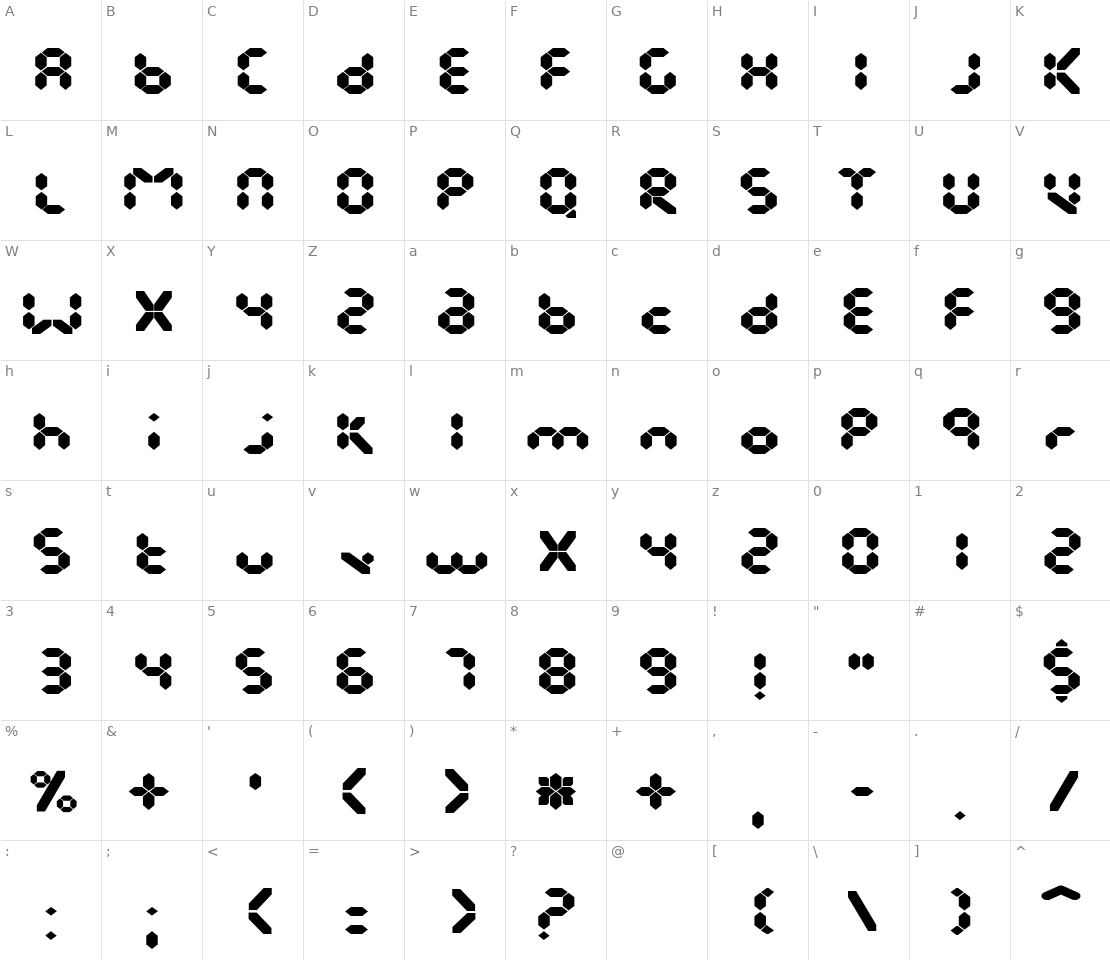
Endless Showroom
Endless Showroom is a modular pixel typeface from Ray Larabie that builds each character from geometric blocks, giving it a clean, grid-locked precision that feels more futuristic than nostalgic. Unlike rougher pixel fonts, the letterforms here are deliberate and tidy, almost architectural in their construction. Best at display sizes for headlines, digital interfaces, or retro-futuristic branding where you want pixel aesthetics without the 8-bit scrappiness.